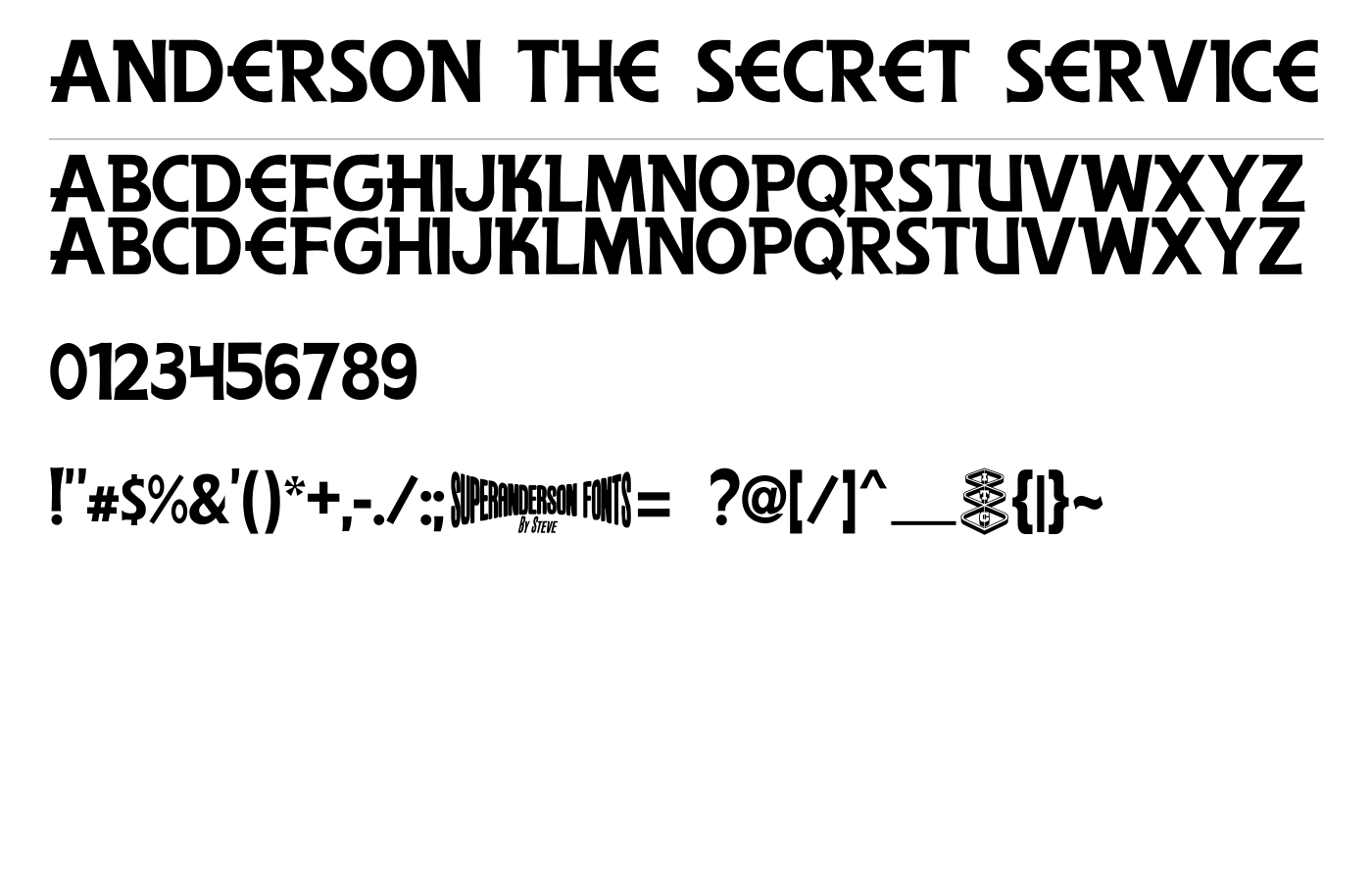
Anderson The Secret Service is a bold, sans serif display font with playful, geometric letterforms that evoke a retro and slightly mysterious vibe. Its strong, thick strokes and unique shapes give it a distinct personality, making it perfect for eye-catching logos, posters, and branding where a fun yet confident style is desired. This font works well in headlines and creative projects that want to stand out with a stylish yet approachable character.
Anderson The Secret Service Font
About Anderson The Secret Service Font
| Font family | Anderson The Secret Service Font |
| Designer | Steve Ferrera |